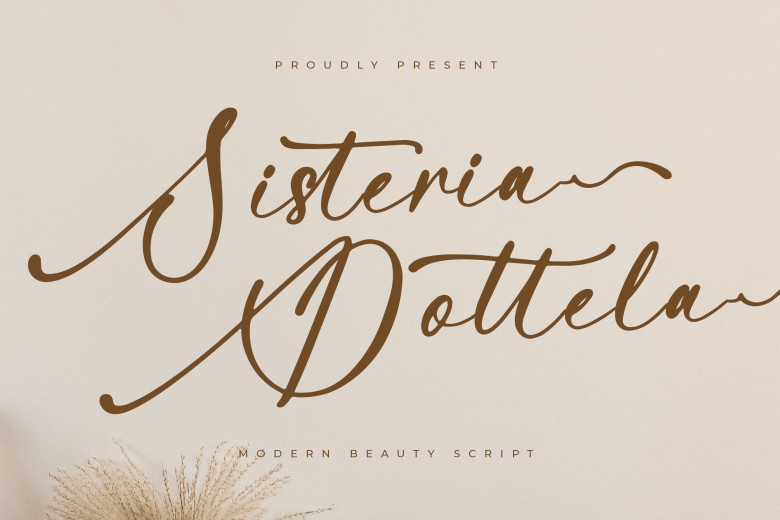
Sisteria Dottela Font
Sisteria Dottela Contemporary Beauty Script Font is perfect for use in all sorts of projects, from logo design and branding, homeware packaging for products like mugs and quotes, shopping bags with watermarks for quotes to posters T-shirts, covers, book covers, names greeting cards, invitation cards, labels, watermarks, photography, special events photography projects or any other luxurious endeavor that calls for serif flavour.
Sisteria Dottela Handwritten Script Font